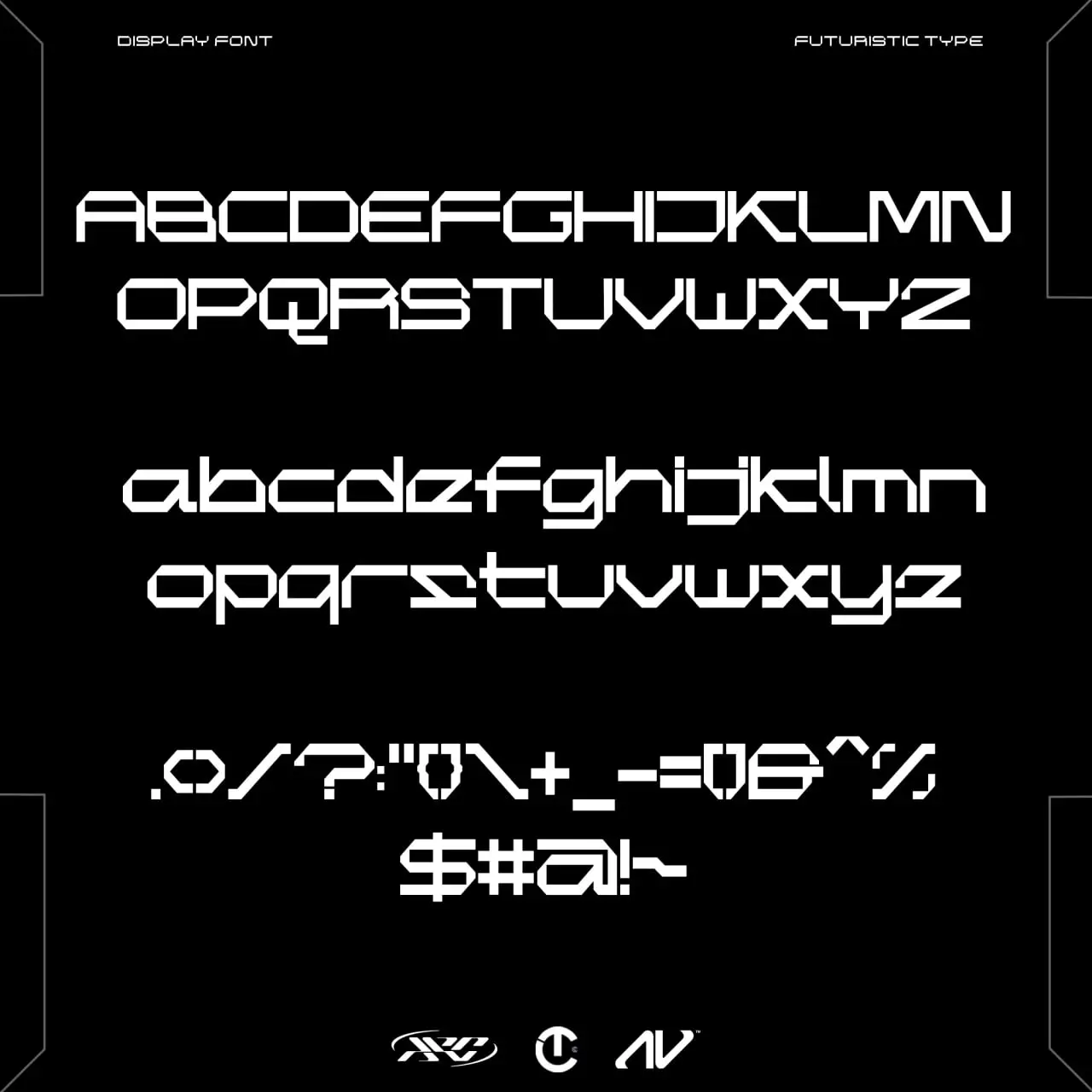
Revoke Font
The Revoke Font is a modern and versatile typeface designed for a wide range of applications. With its clean lines and contemporary aesthetic, this font is perfect for branding, logos, web design, and print materials.
• Multiple weights for flexibility in design
• Stylish and readable letterforms
• Uppercase and lowercase characters included
• Supports a variety of languages
• Ideal for creating eye-catching headlines and logos